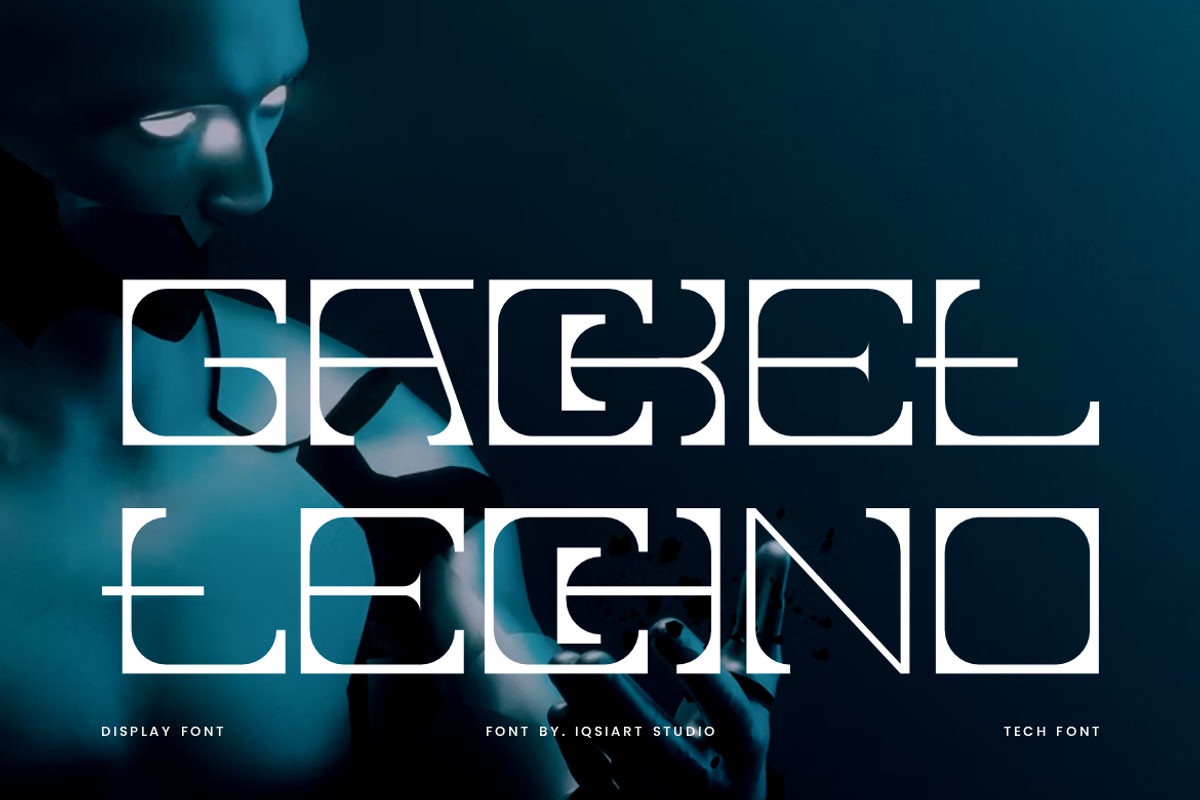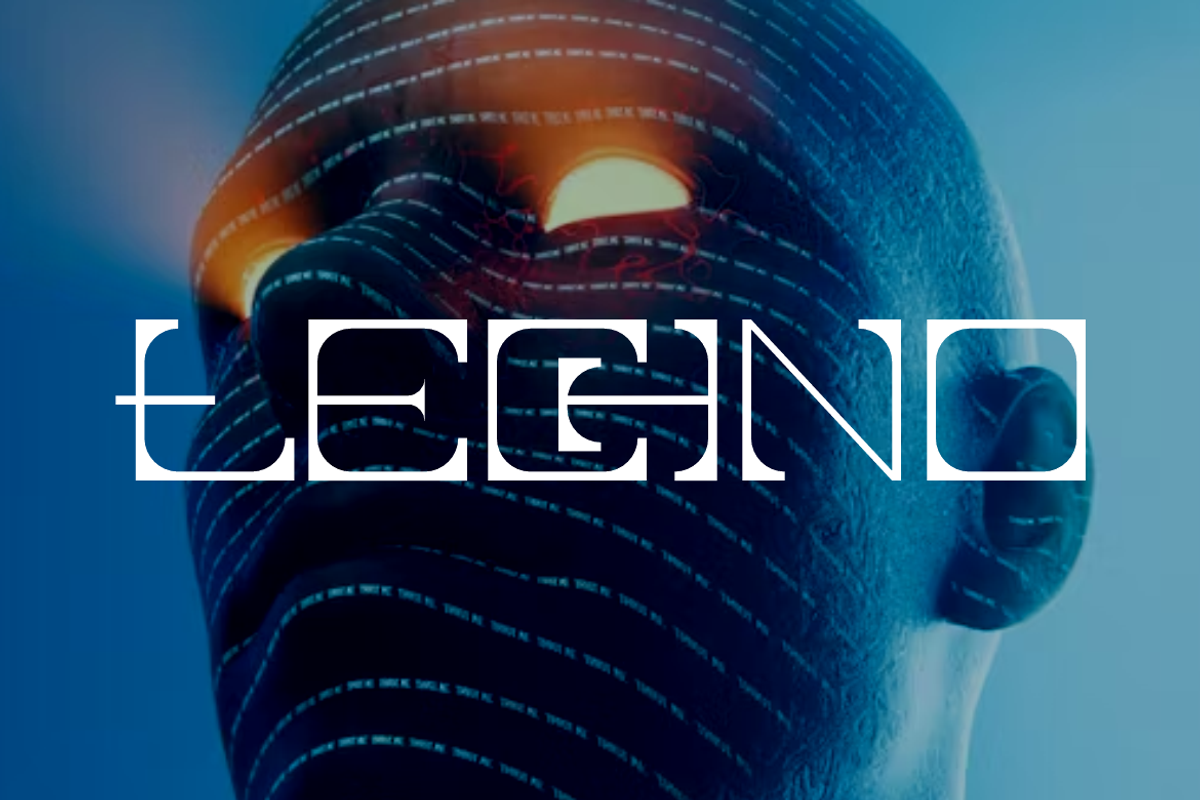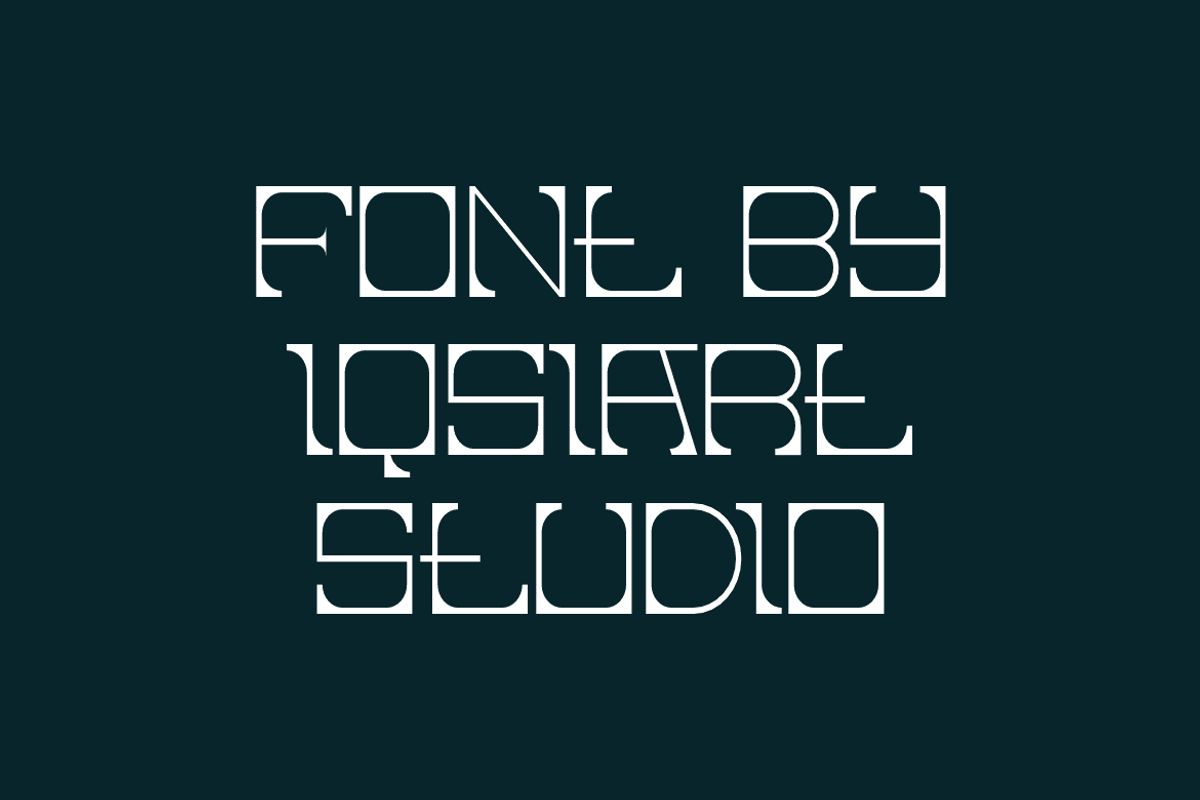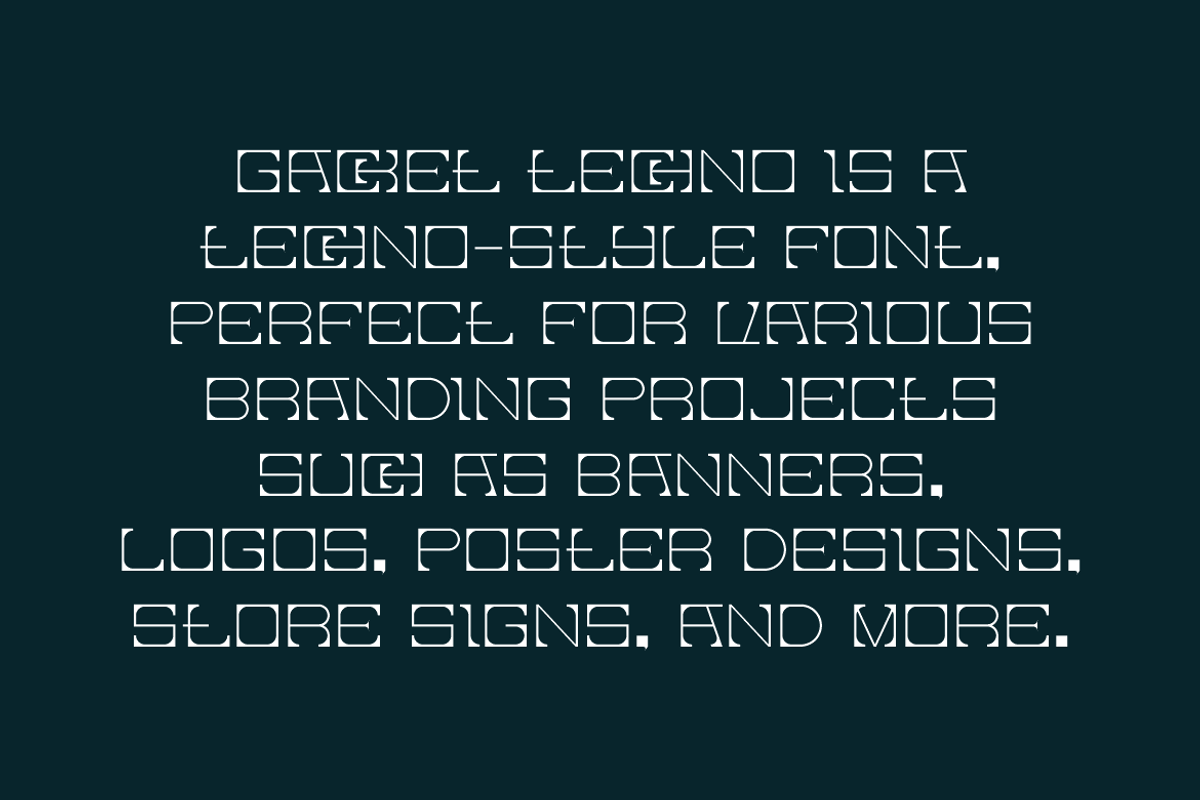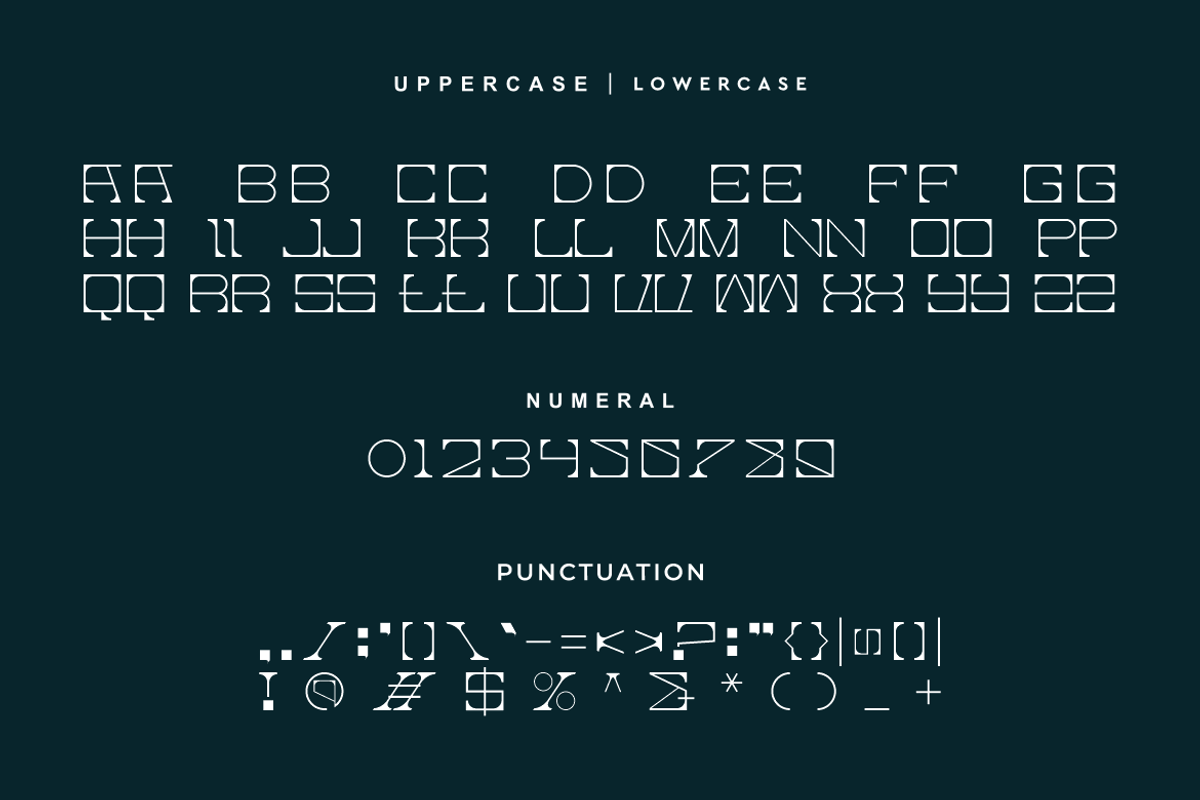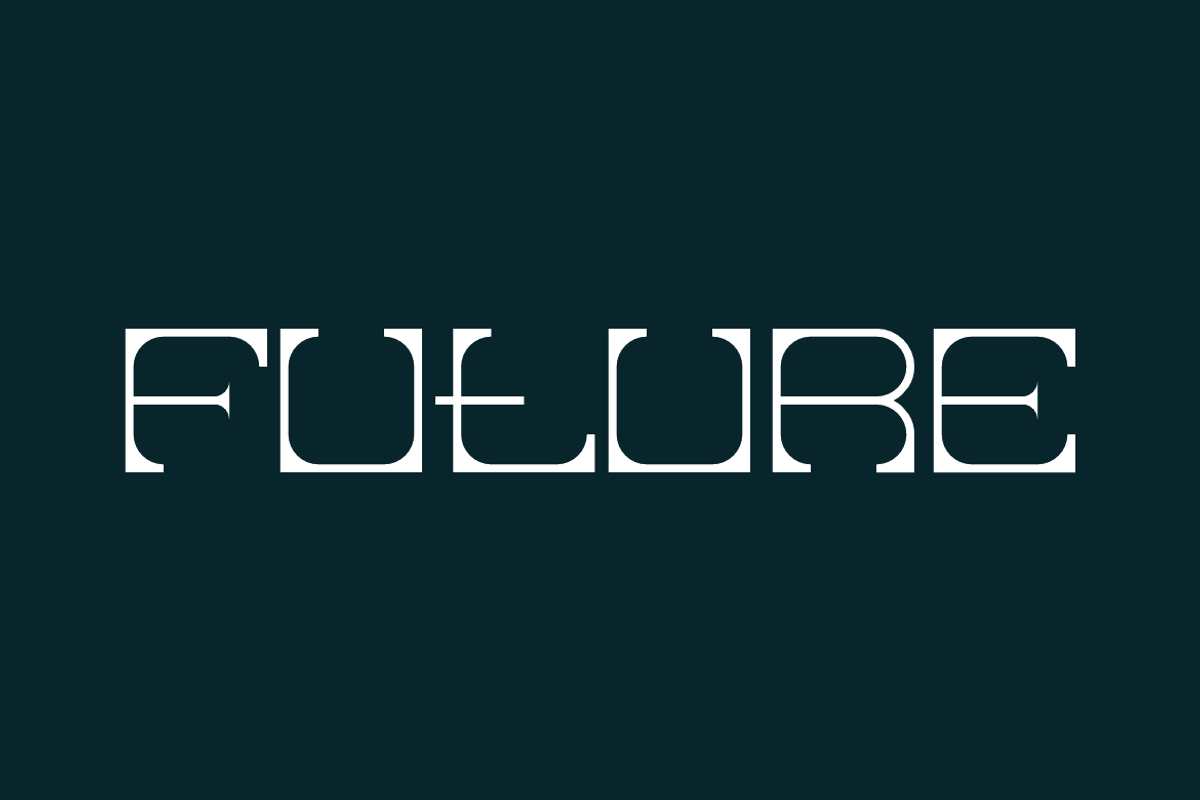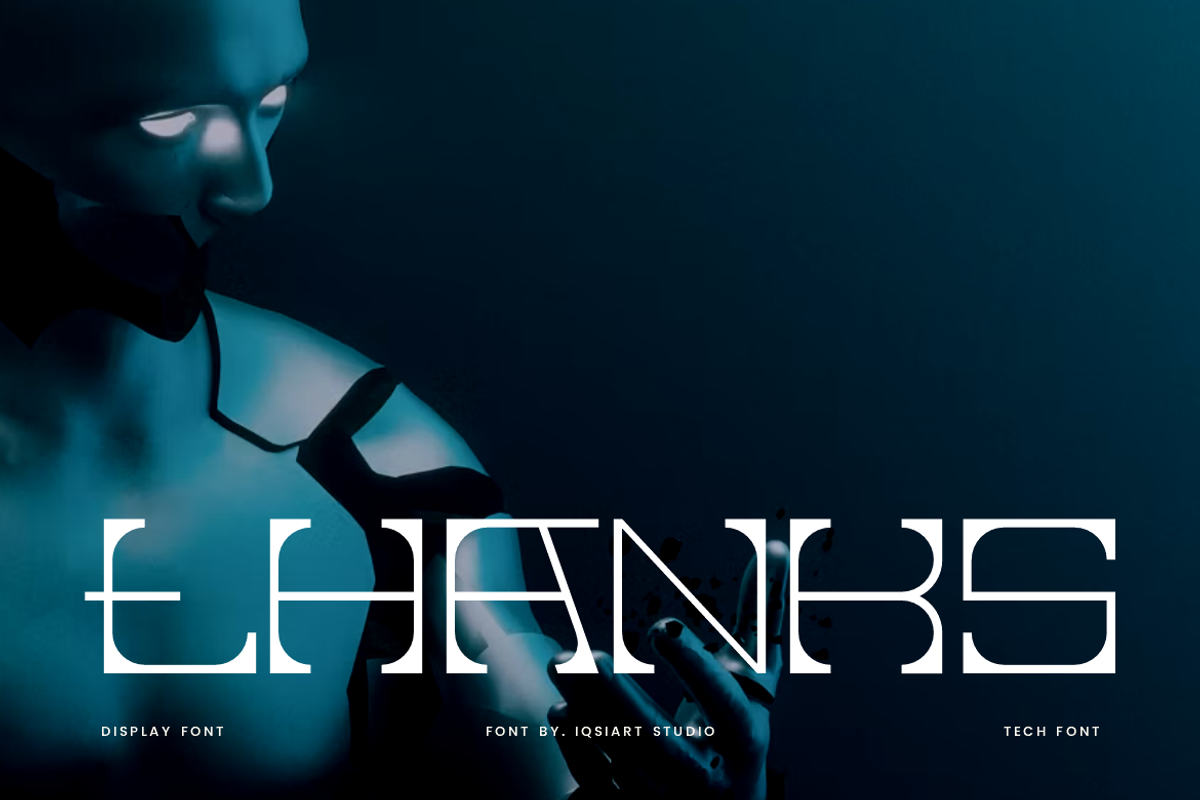
Gacket Techno - Futuristic Font
Gacket Techno Font is a modern and authentic display typeface
that suits a variety of design needs. We offer a wide range of themes